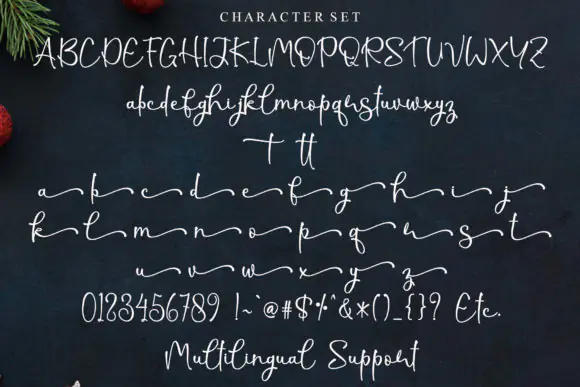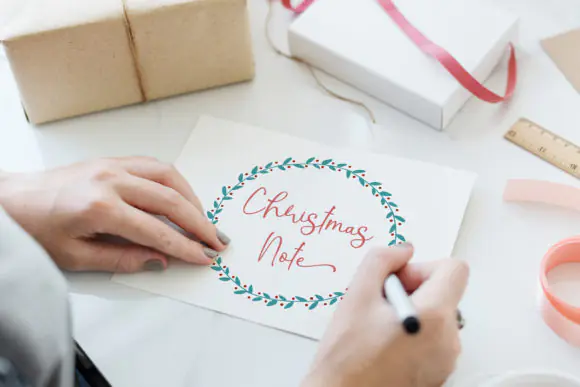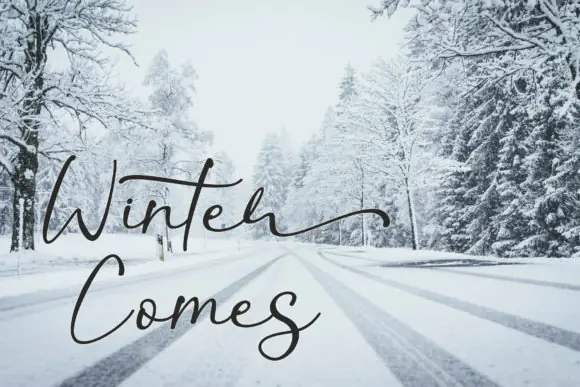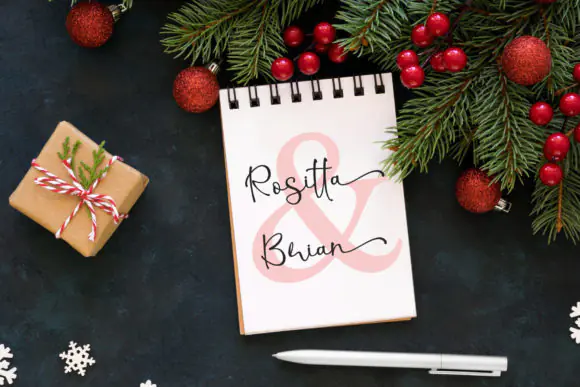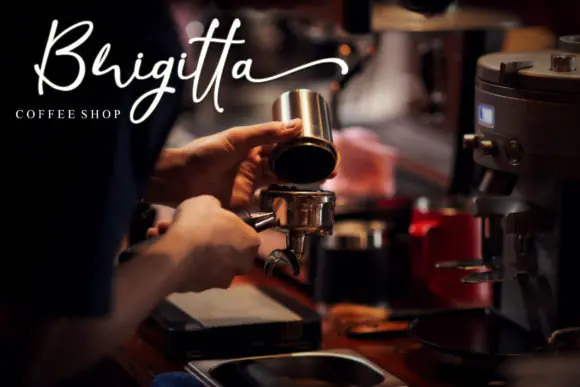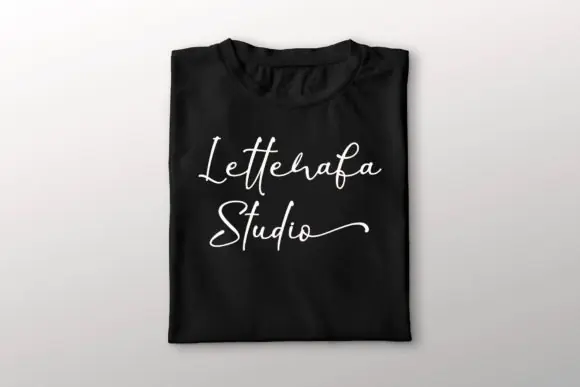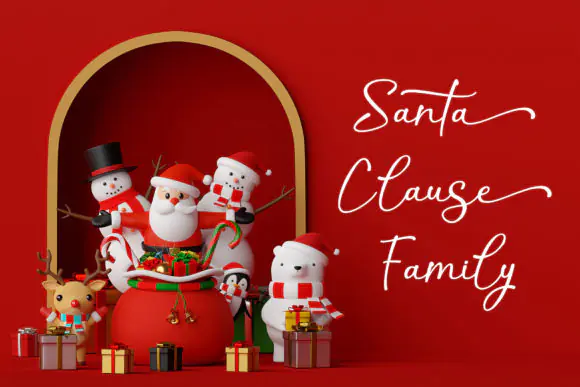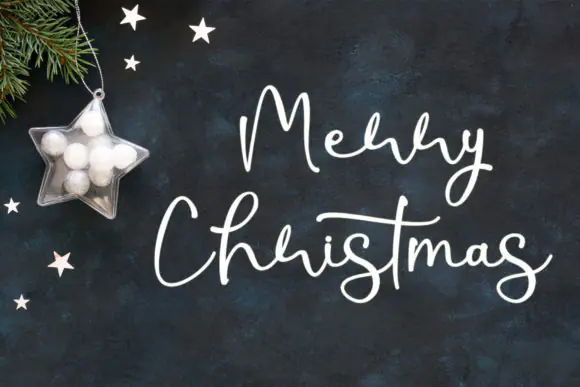
Create elegant, polished, and beautifully refined designs with Christmas Shine Font, a classy modern script typeface made for creative projects that need a graceful handwritten touch. With its smooth curves, stylish flow, and premium appearance, this font is perfect for adding sophistication, beauty, and charm to both festive and everyday designs.
Christmas Shine Font is ideal for designers, crafters, branding creators, invitation makers, stationery sellers, wedding designers, small business owners, social media creators, and digital product sellers who want a versatile script font for elegant visual projects. It works beautifully for logos, branding, wedding invitations, save-the-date cards, stationery, greeting cards, thank you cards, social media posts, product packaging, stickers, labels, business cards, wall art, and printable designs.
This font has a classy, elegant, and modern look, making it suitable for luxury branding, feminine logos, romantic wedding designs, boutique packaging, holiday graphics, and premium handmade-style projects. Whether you are creating a Christmas greeting card, refined brand logo, elegant invitation suite, or stylish Instagram post, Christmas Shine Font adds a professional and graceful finish to your typography.
Christmas Shine is also PUA encoded, which means you can easily access its glyphs and swashes to create more decorative, customized, and high-end lettering designs.